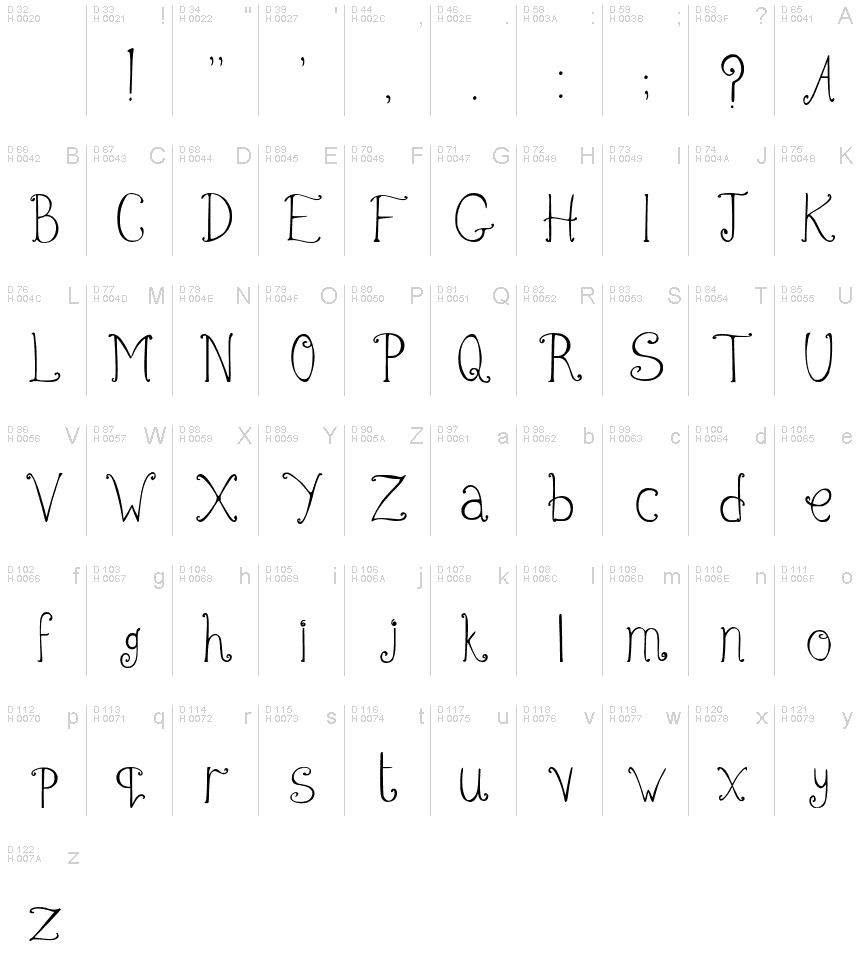
Swirlyq, the latest display font designed by Sorcha Reilly, boasts a curly style that's bound to add a touch of whimsy and elegance to any project. With a light weight, Swirlyq is perfect for titles and headings in digital and print media alike. Its playful curves make it ideal for use in branding projects, invitations, posters, and even children's books. The swirly font typeface is also well-suited for designs that need an artistic flair or feminine touch. If you're looking for a unique and eye-catching font that will make your text stand out from the crowd, look no further than Swirlyq!
Swirlyq